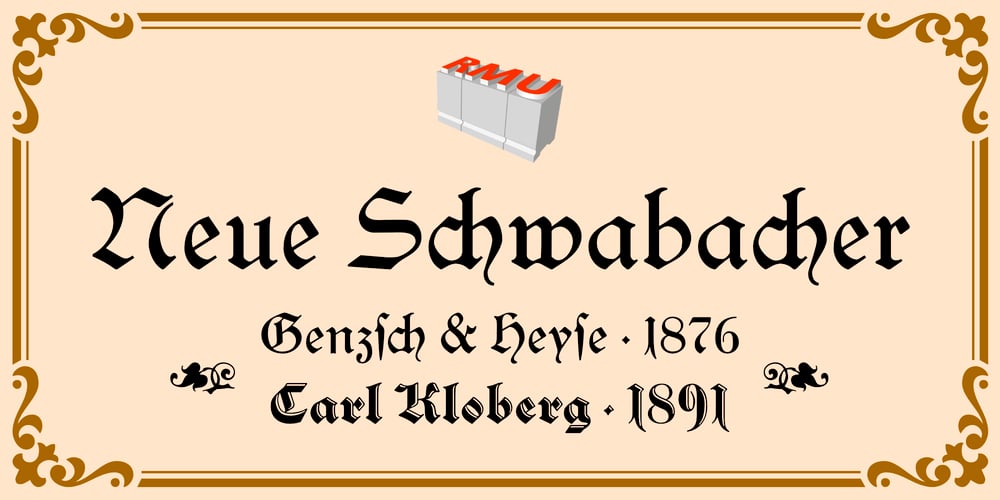
Neue Schwabacher Font Family was designed by Ralph M. Unger and published by RMU. Neue Schwabacher contains 2 styles and family package options. Neue Schwabacher is a revival of a revival. Albert Anklam modified the medieval letter forms of Schwabacher according to the fashion of the fin-de-siècle era, and his font was first released by Genzsch & Heyse in 1876.This most widespread font face of the 19th century was fresh redrawn and made fit for nowadays’ usage.To get access to all ligatures, it is recommended to activate both Standard and Discretionary ligatures.In 2024 I added the engraved version which is based upon an inhouse-design of Carl Kloberg, Leipzig, first released in 1891.